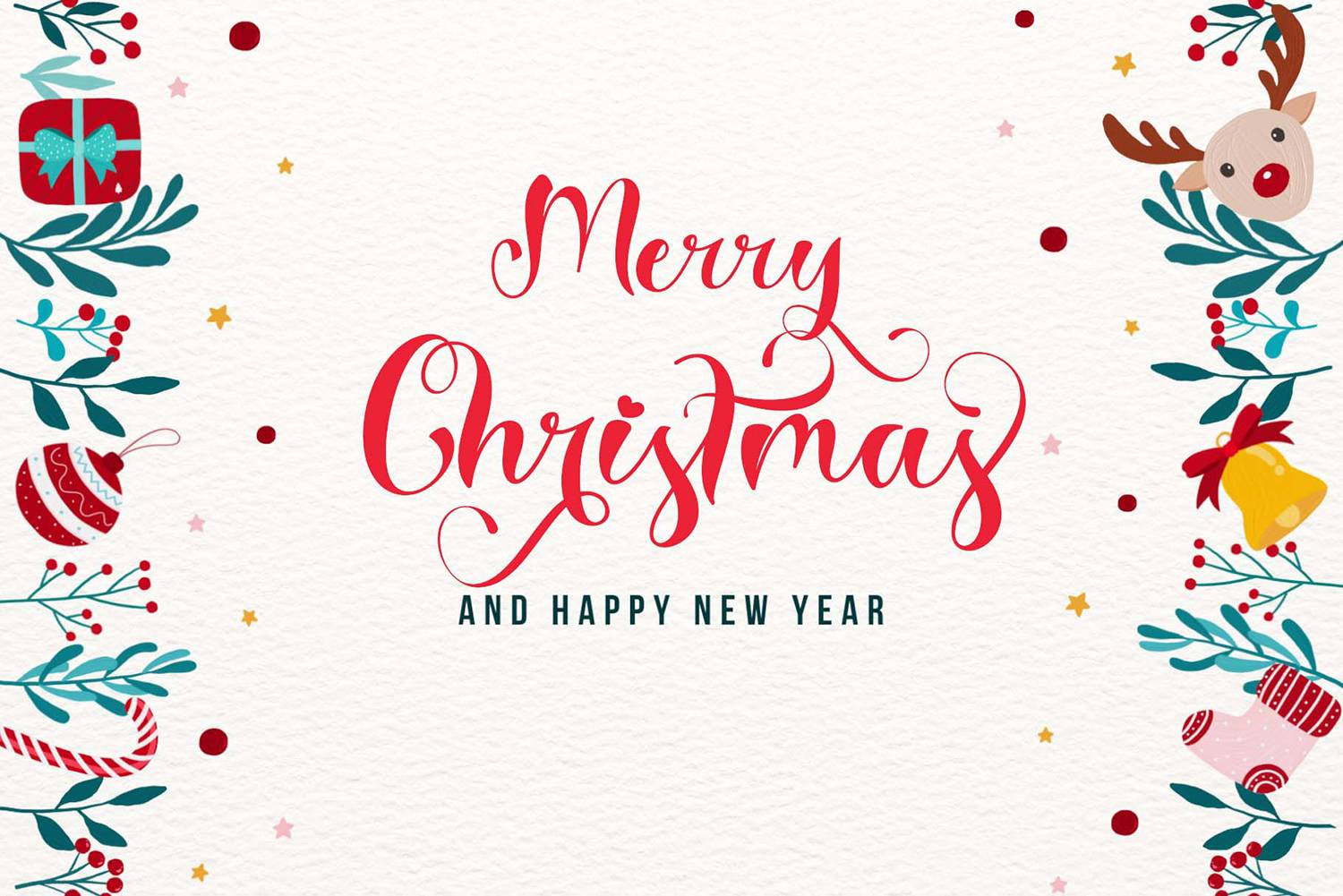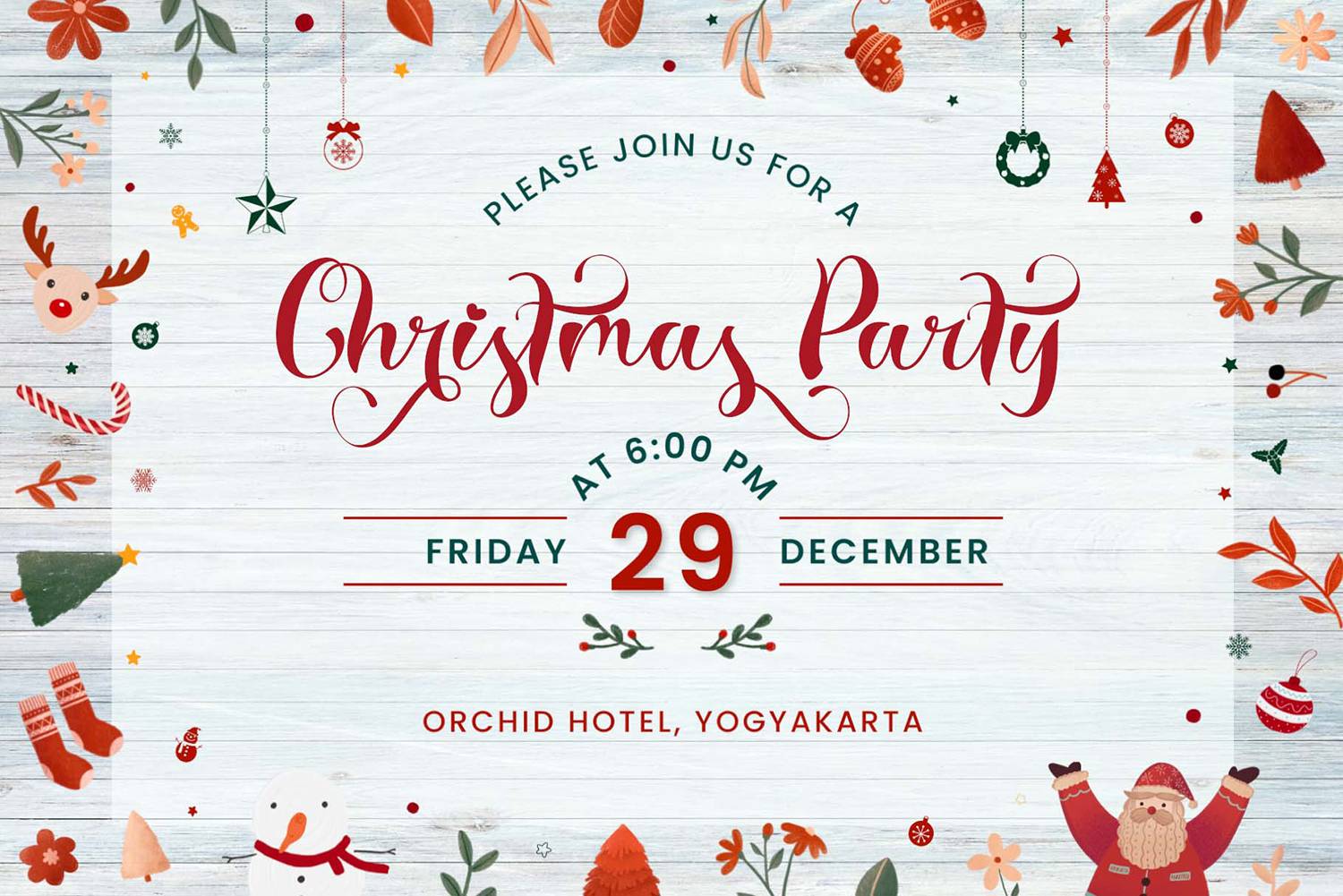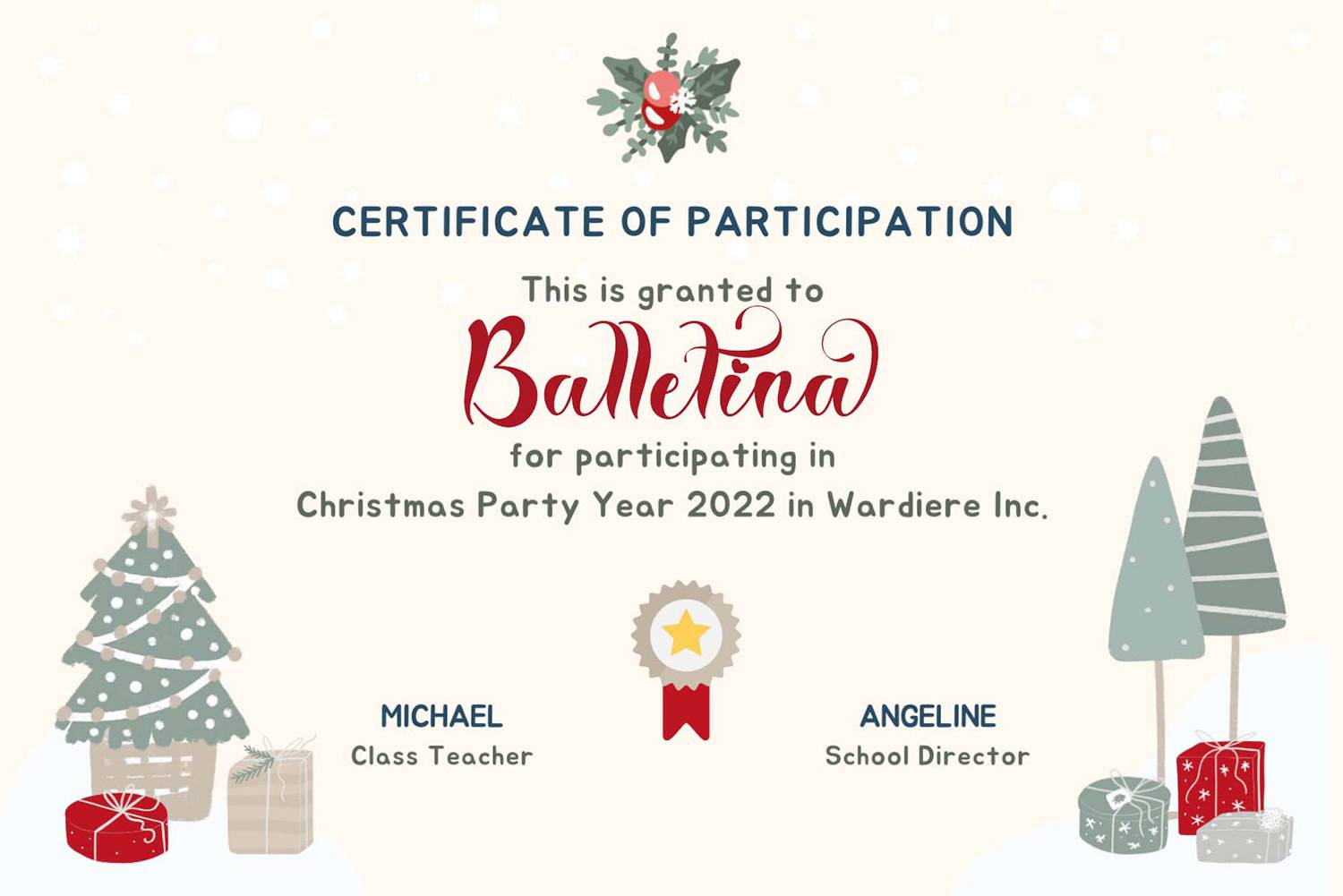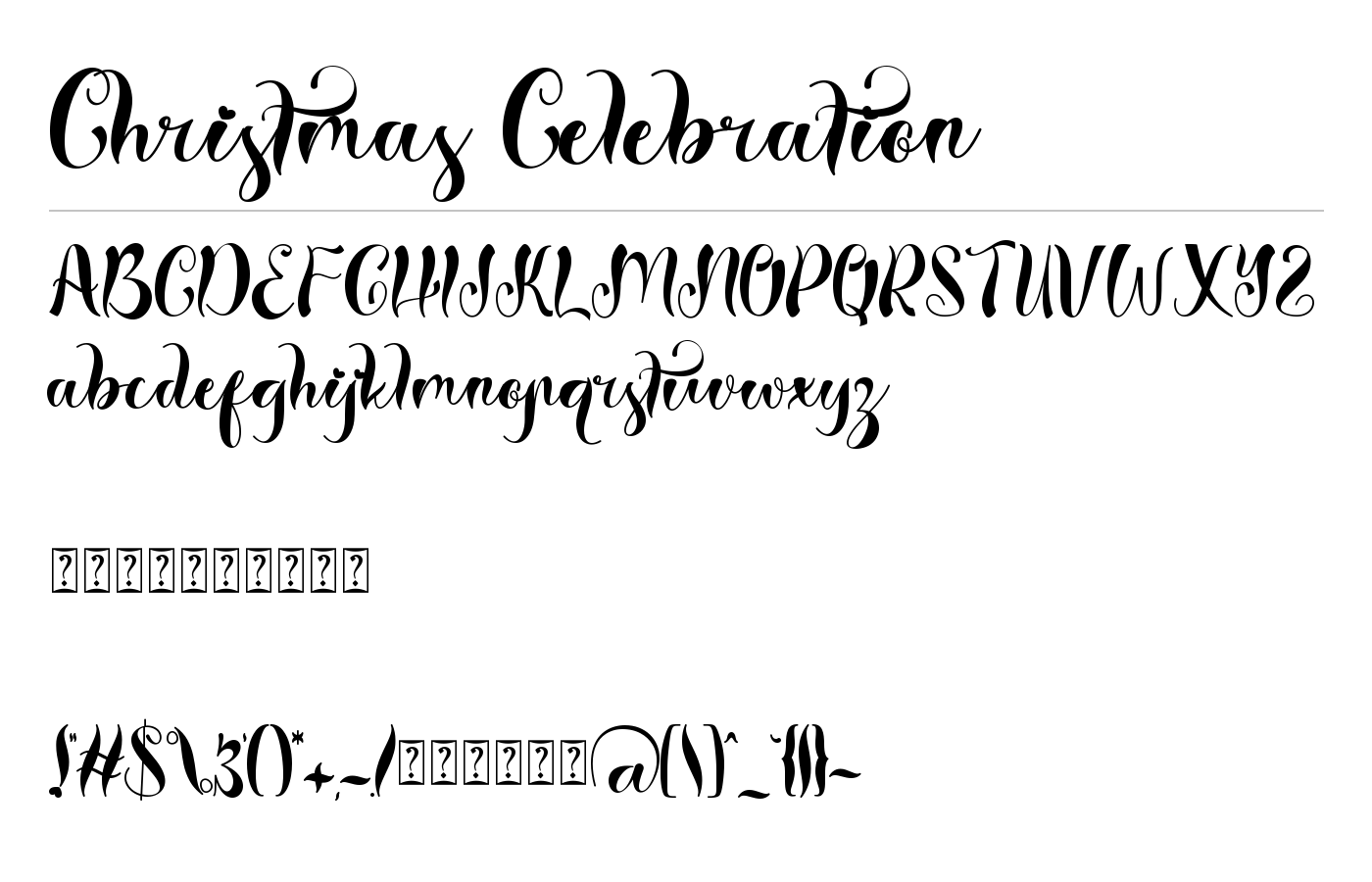
Christmas Celebration is an elegant script font featuring smooth, flowing strokes with playful swirls and a lively rhythm, perfect for festive and joyful designs. Its balanced weight and graceful letterforms bring a warm, handcrafted feel that works wonderfully for holiday cards, invitations, and branding with a cheerful, celebratory vibe. This font shines best in headlines and decorative text, adding charm and personality to seasonal and special occasion projects.
Christmas Celebration Font
About Christmas Celebration Font
| Font family | Christmas Celebration Font |
| Designer | Yoga Letter 2022 (Isroni Yoga Prasetya) |